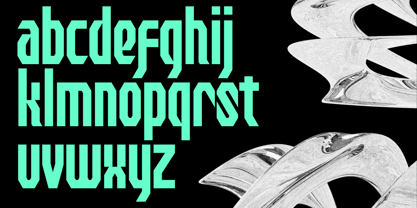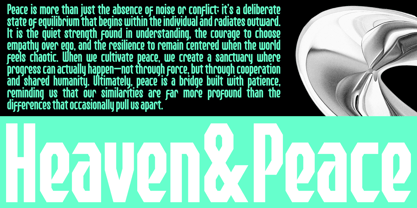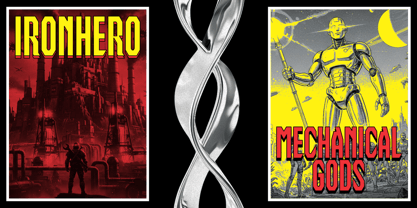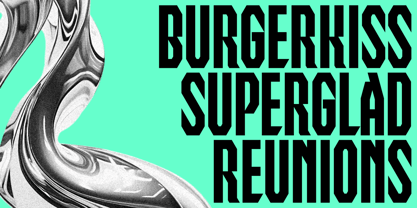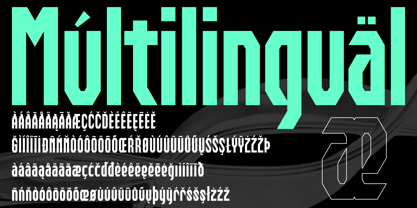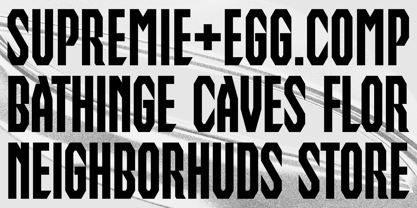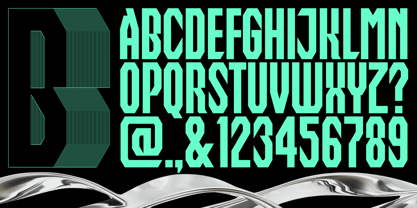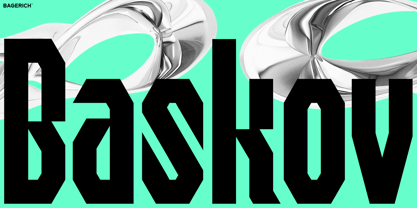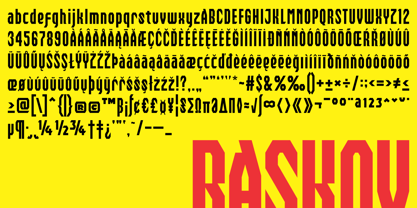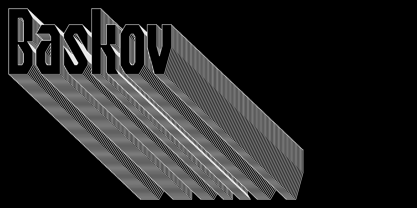
The Baskov Font Family was designed by Reza Rasenda and published by Zealab Fonts Division. Baskov contains 1 styles. More about this family
Baskov is a high-impact, display typeface designed at the intersection of Victorian industrialism and Neo-Tokyo futurism. It rejects the delicate filigree of traditional steampunk in favor of raw, heavy-duty power, resulting in a "Cyber-Industrial" aesthetic that feels both ancient and advanced. Baskov is built in a massive, ultra-heavyweight class. Its characters occupy maximum space, featuring thick strokes that feel like they were forged from reinforced steel plates. Subtle "rivet" details and modular junctions suggest a world of brass, steam, and high-pressure valves. The architecture of the font is reminiscent of locomotive engines and heavy boiler plating. Despite its weight, the font maintains a sense of momentum through strategic negative space and streamlined horizontal bars, giving it a "high-tech armor" vibe. Baskov isn't just a font; it’s a structural component. It doesn't sit on a page—it anchors it. Perfect for "Mecha" or "Dieselpunk" genre titles, HUD elements, and faction logos. Ideal for hardware companies, streetwear labels, or craft breweries looking for a rugged, modern identity, and also cinematic posters for dystopian sci-fi or alternative-history epics.
Baskov